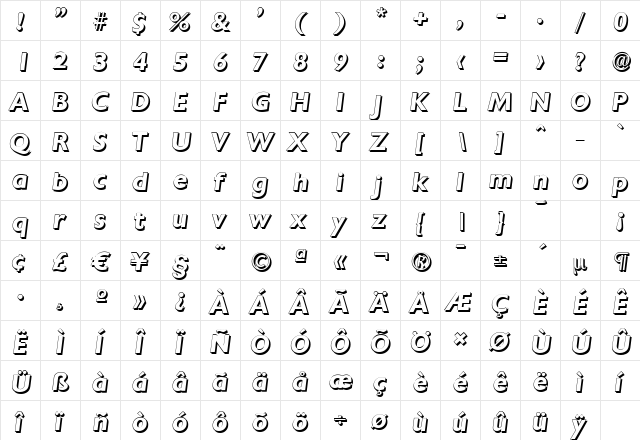
ChantillyShadow BoldItalic Font Preview
Design Context for ChantillyShadow Typeface
ChantillyShadow is built around its visual character rather than neutral utility — its distinctive forms are designed to make an impression at display sizes. Its italic angle brings a sense of urgency and motion to the letterforms. The heavy weight commands attention and anchors typographic hierarchies.
Font Pairing: Pair with a clean neutral sans-serif for body copy to let ChantillyShadow's character lead without overwhelming the composition.
Pro Tip: Use ChantillyShadow exclusively at display sizes — it was designed to be seen, not read at length. Let a neutral companion handle body copy.